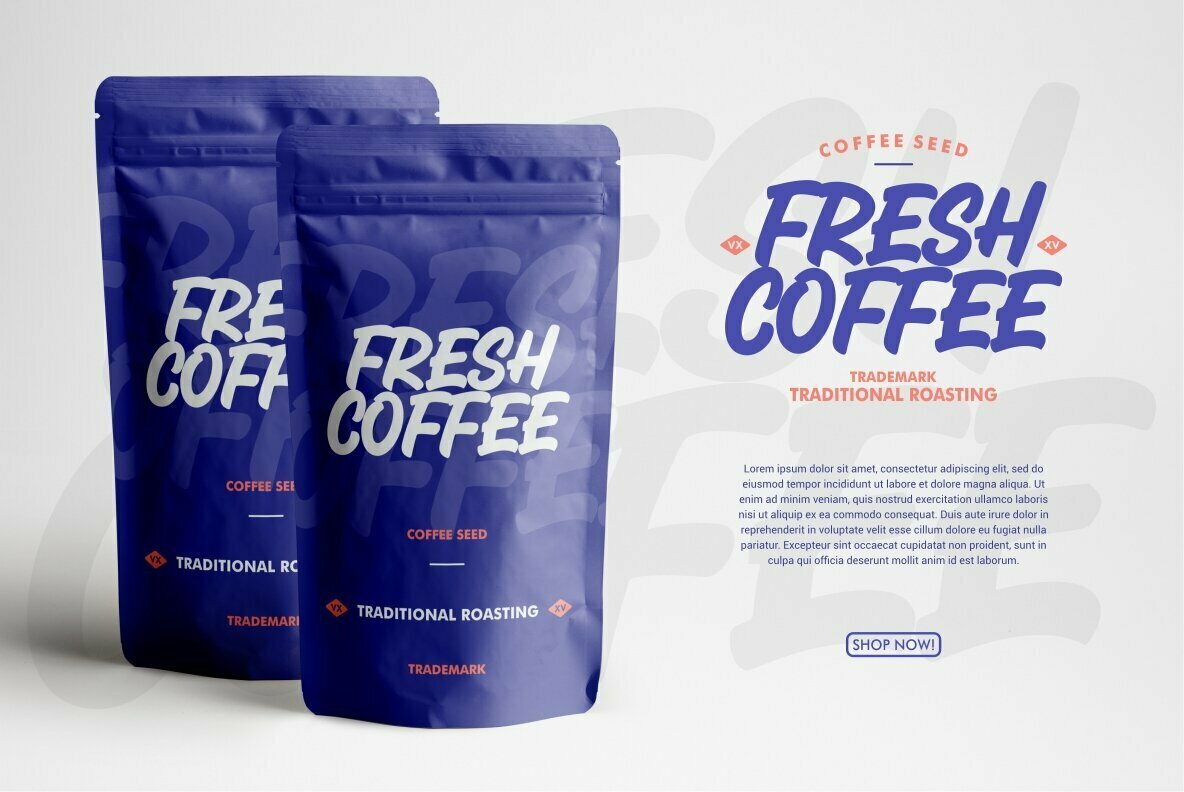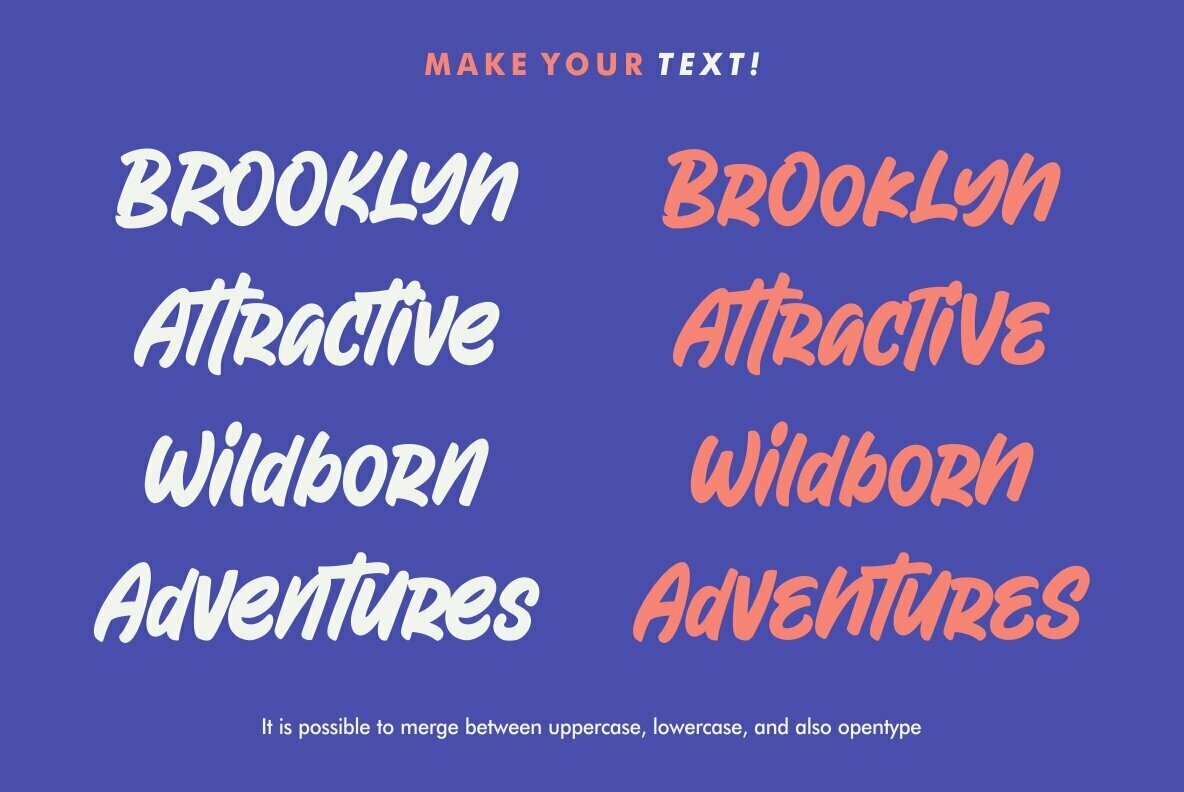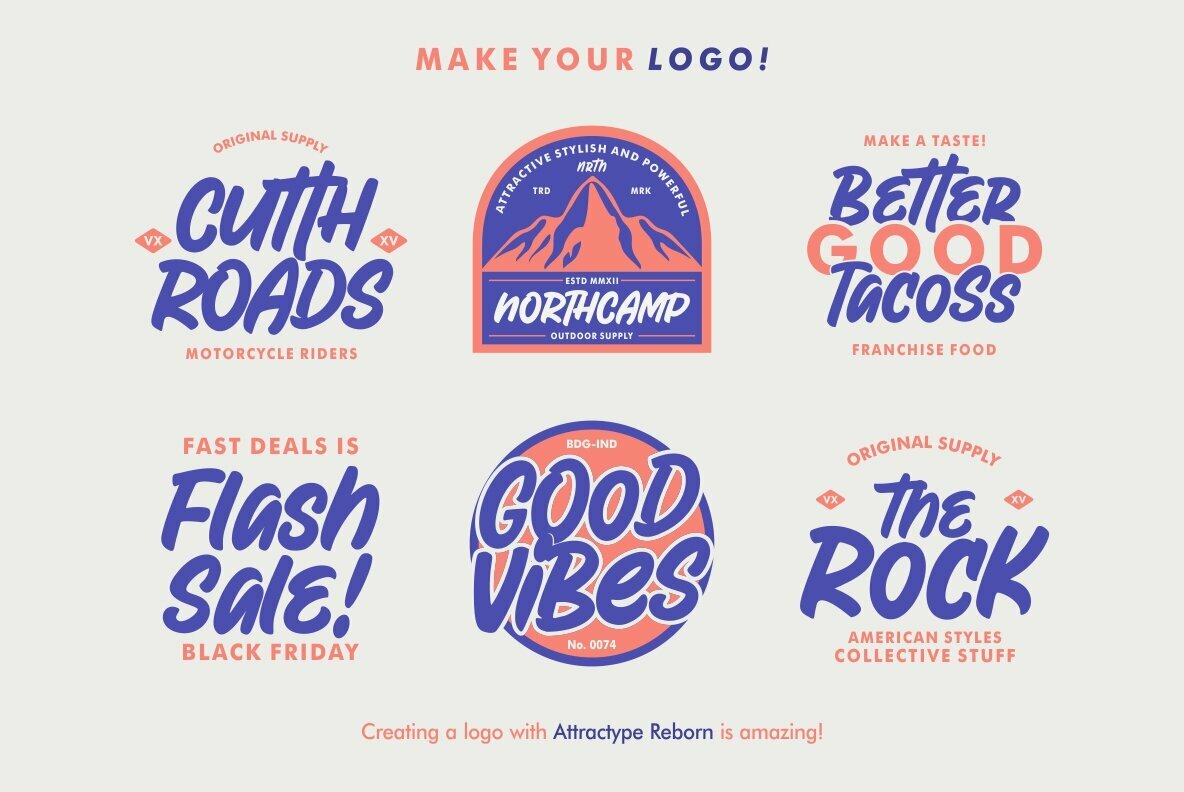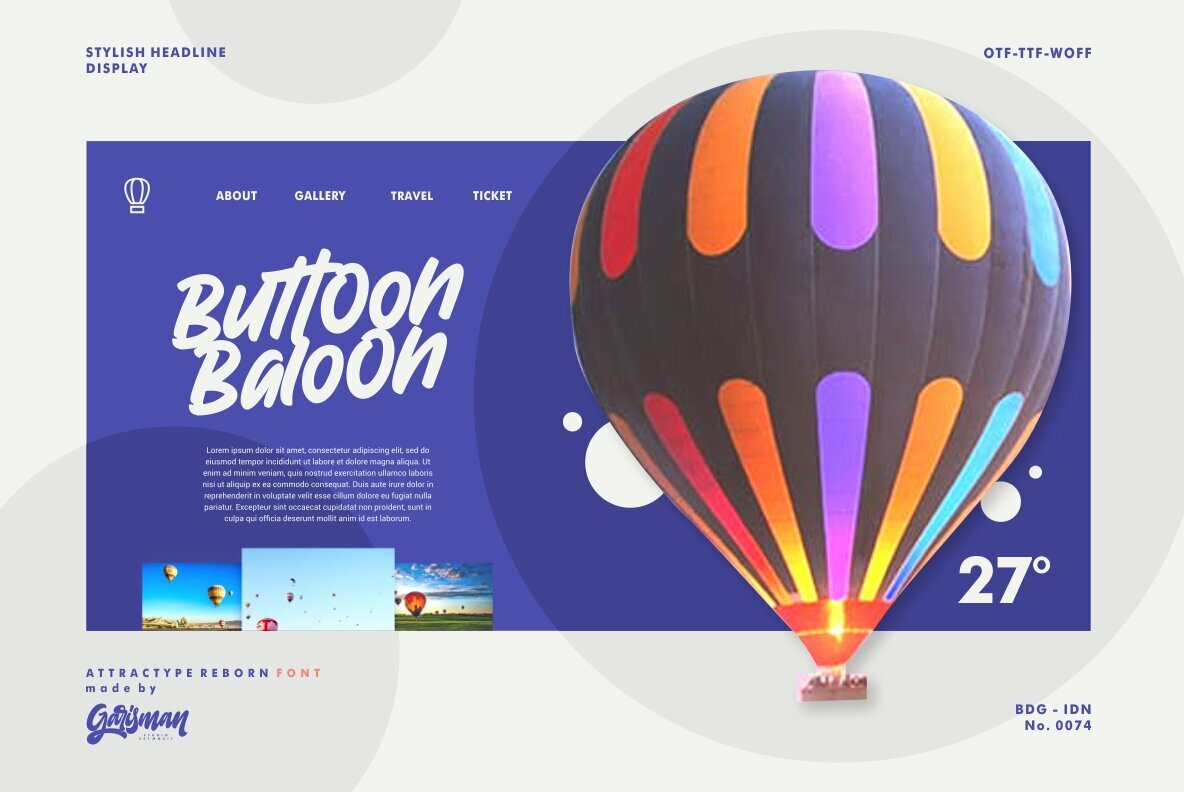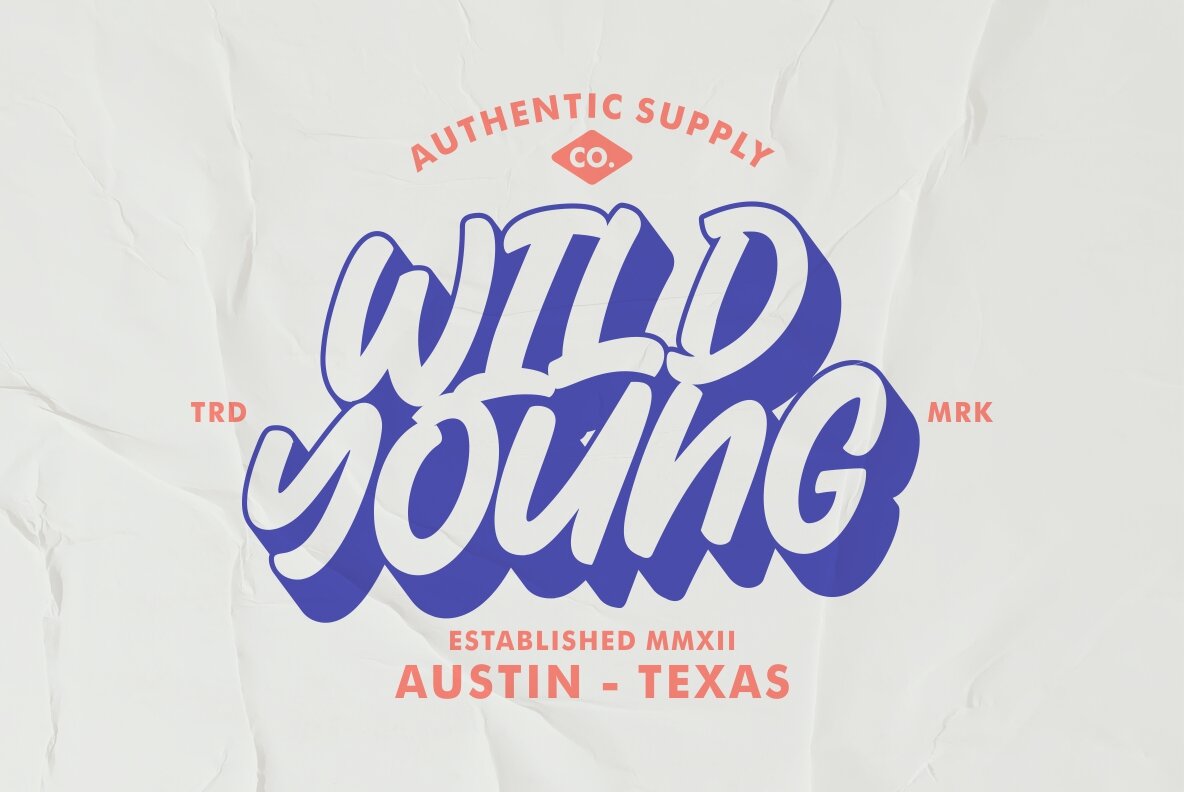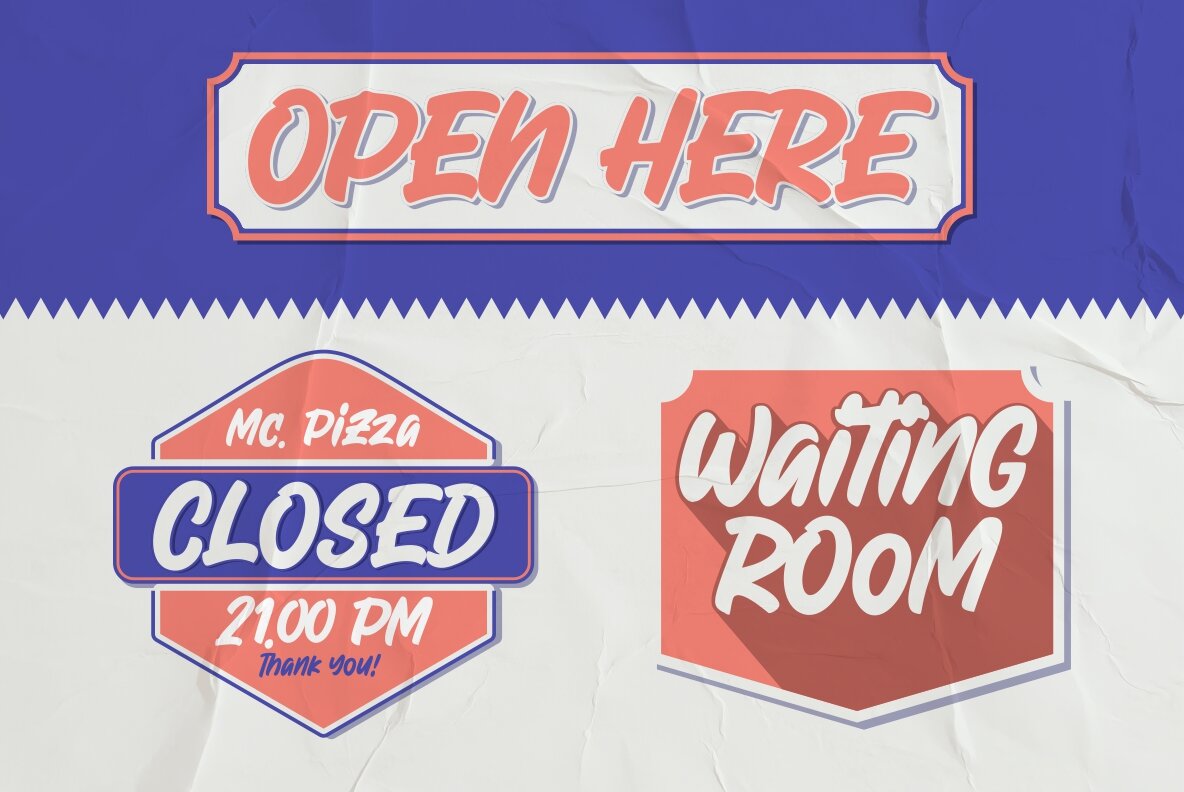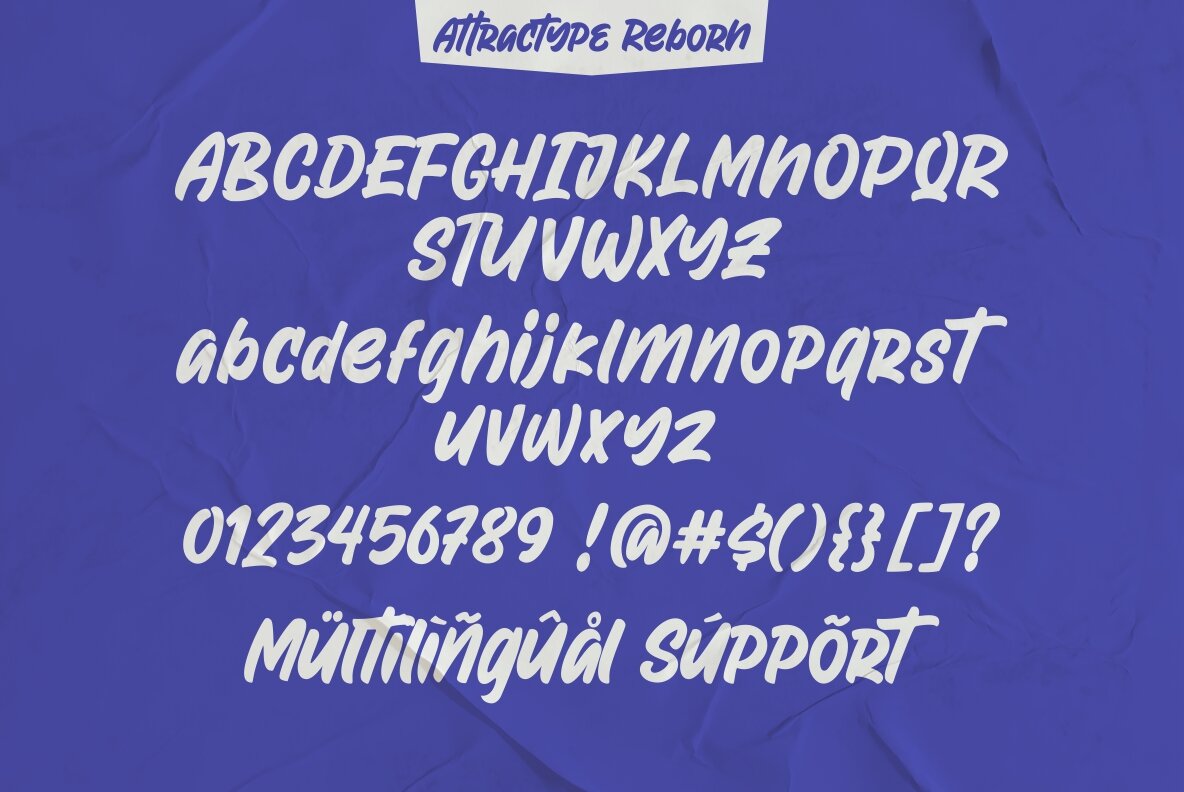
Attractype Reborn Font
Attractype Reborn
Attractype Reborn marries attractive curves with urban flair, producing a stylish script that enhances a wide array of design applications. Whether crafting logo designs, brand imagery, or social media posts, this font delivers an arresting visual appeal.Attractype Reborn: Urban Edge Meets Elegant Script